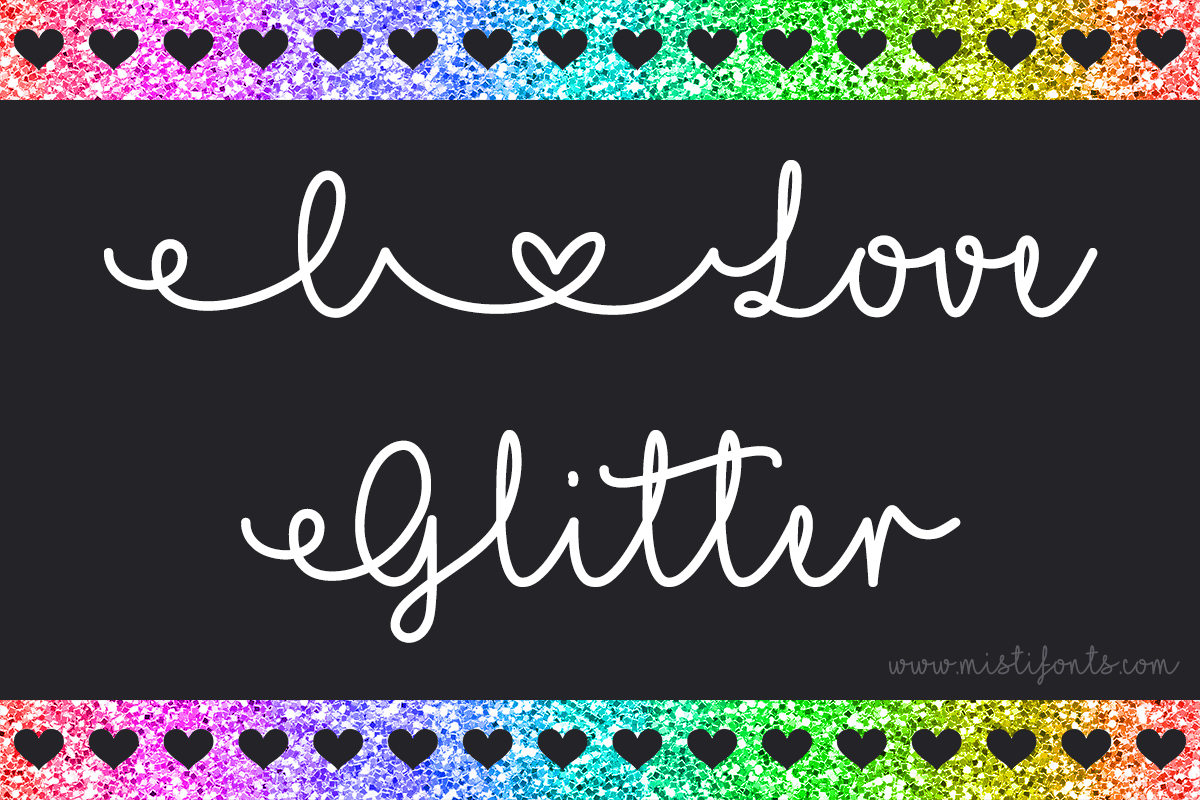
I Love Glitter Font
I love Glitter
About the I Love Glitter Font
The stunning MF I Love Glitter font, was created by Misti Fonts.
This cute handwritten font with connecting hearts is great for creating personalized items. The font comes with loads of features and is very easy to use.